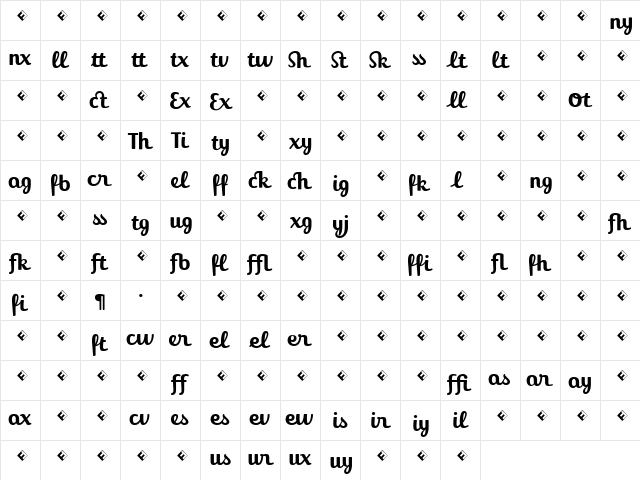
JackieLigaturesBold Bold
Design Context for JackieLigaturesBold Typeface
JackieLigaturesBold takes a measured approach to typography — its balanced proportions and neutral character make it a reliable workhorse for both digital and print work. The heavy weight commands attention and anchors typographic hierarchies.